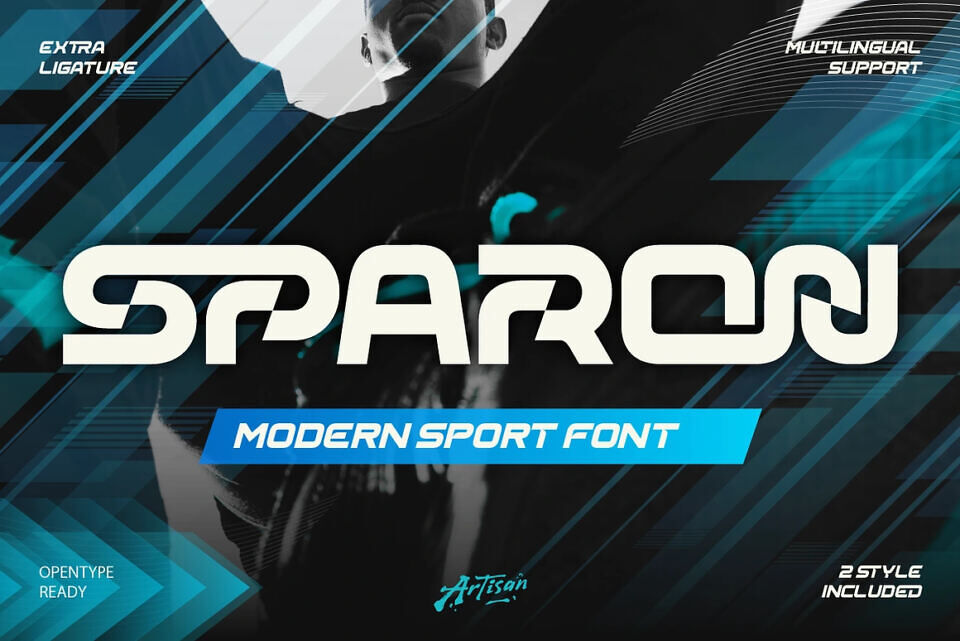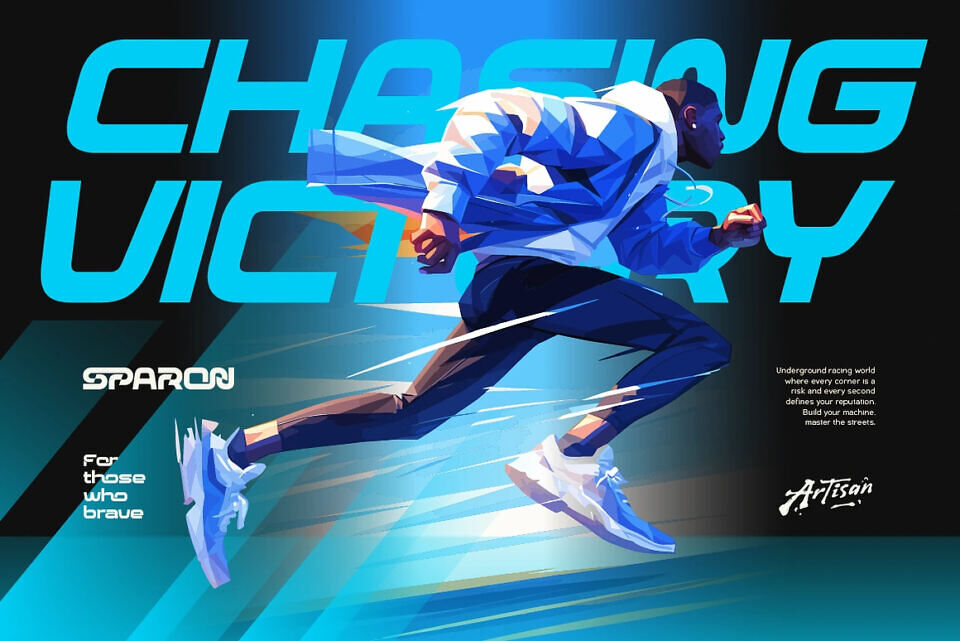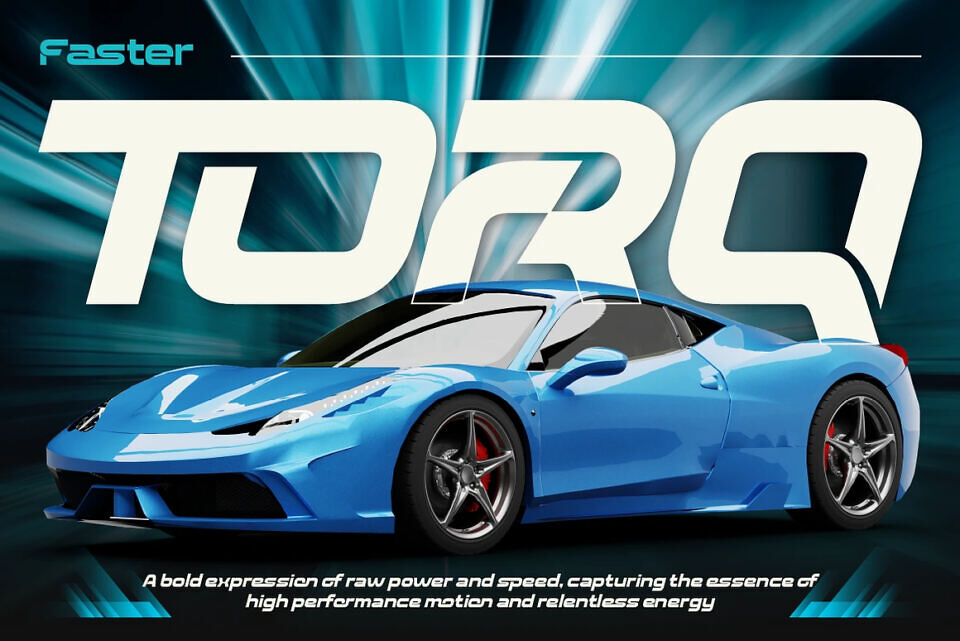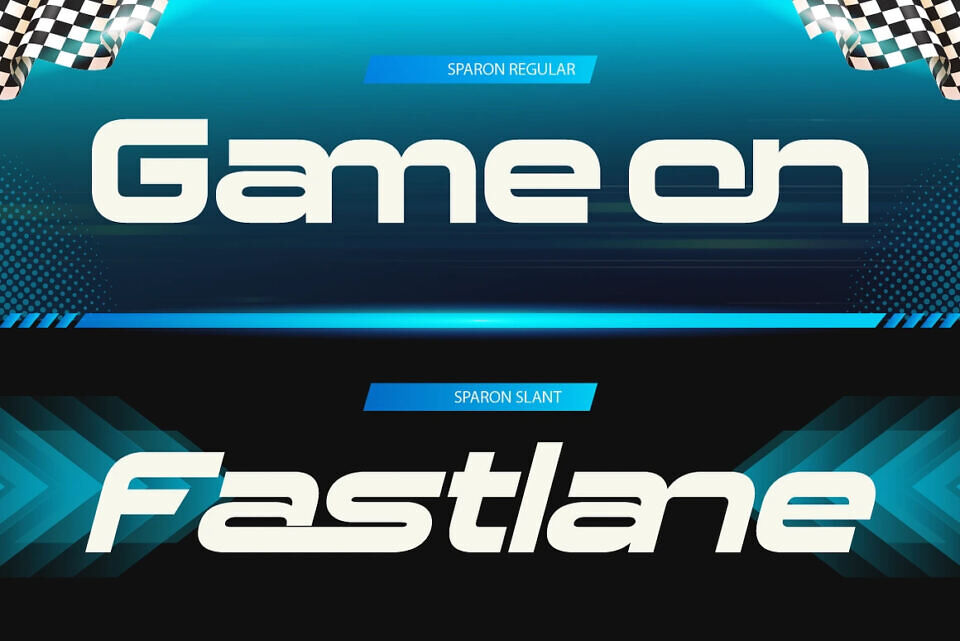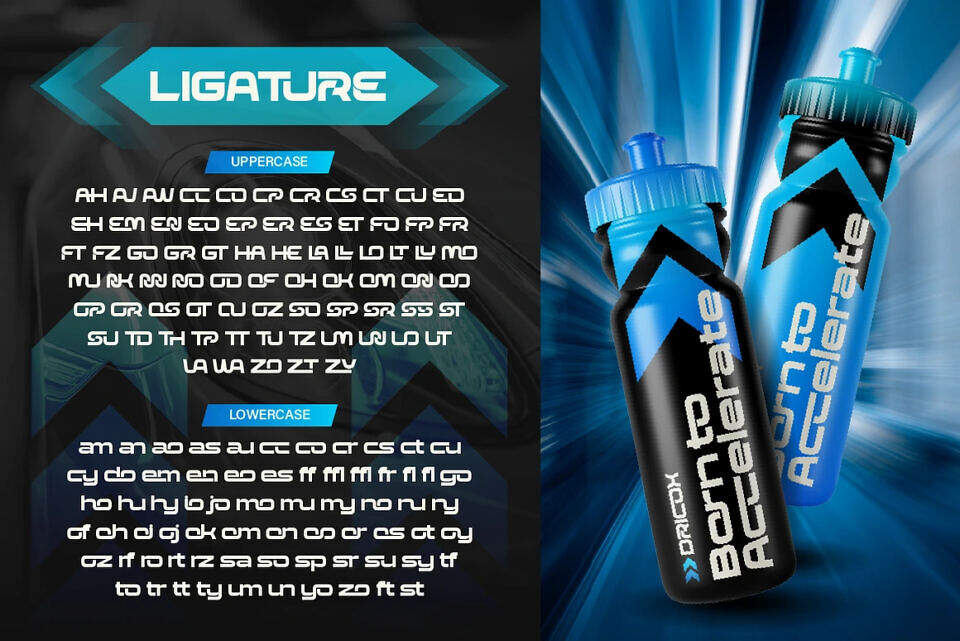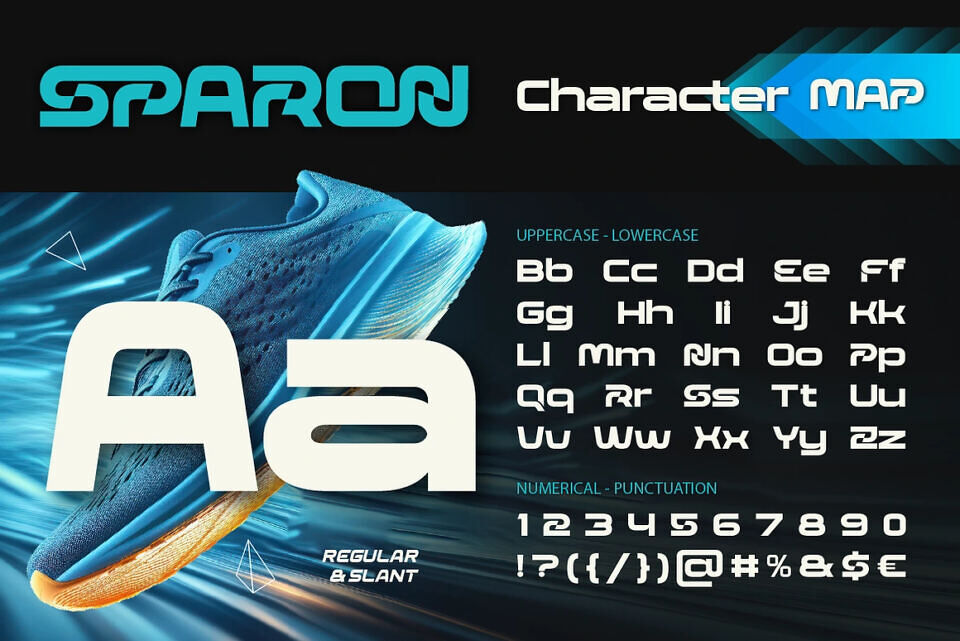
Sparon Font
Sparon is a bold and dynamic modern sport font designed to capture the spirit of speed, power, and high-performance energy. With its sharp cuts, futuristic curves, and aggressive style, Sparon is perfect for designs that need to feel fast, strong, and impactful.
Inspired by racing culture, automotive aesthetics, and competitive sports branding, this font brings a sense of motion and adrenaline into every letter. Whether you’re working on a racing poster, sports logo, or gaming title, Sparon delivers a powerful visual punch.
Designed by: Artisan Themes